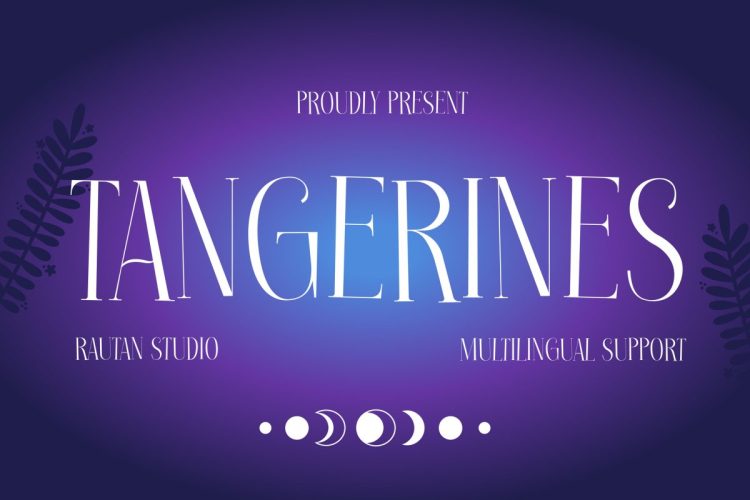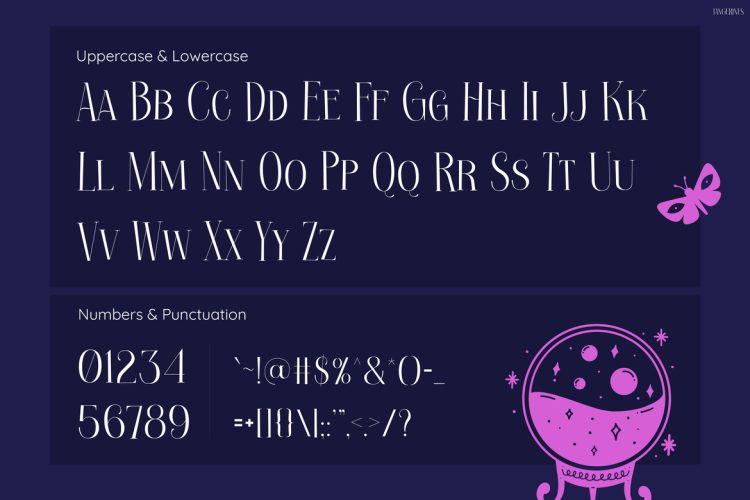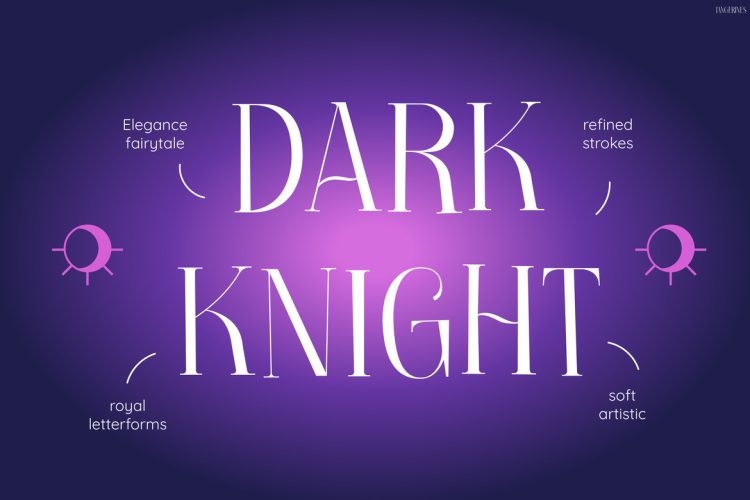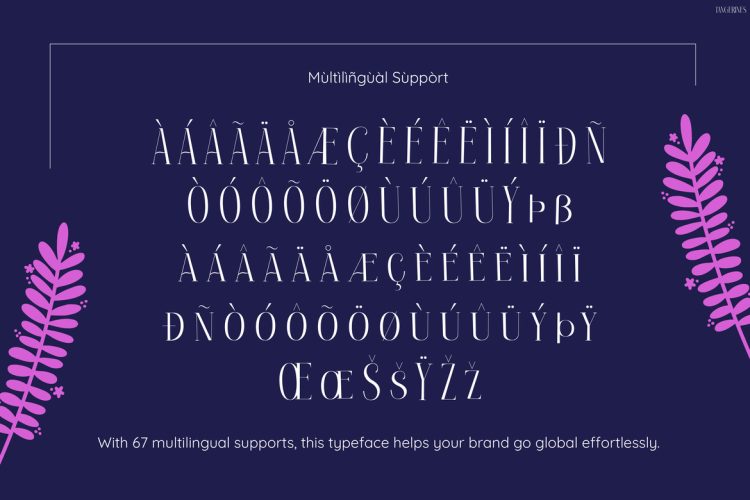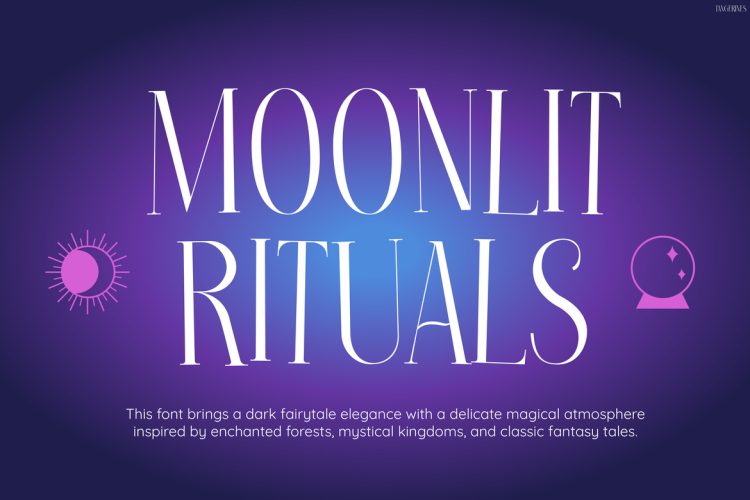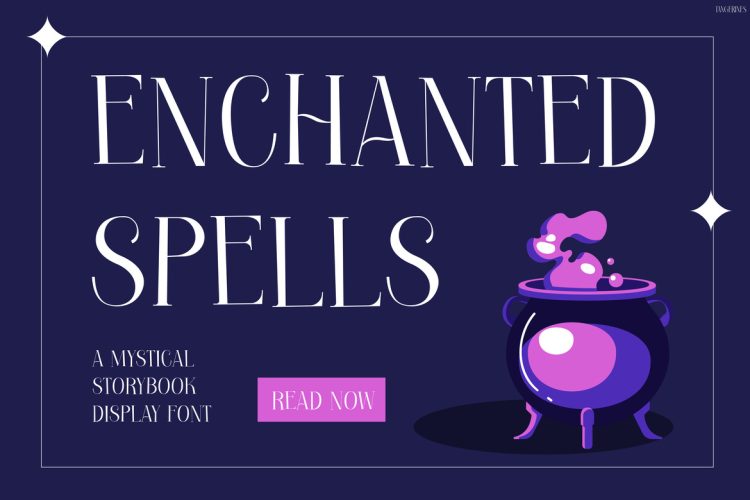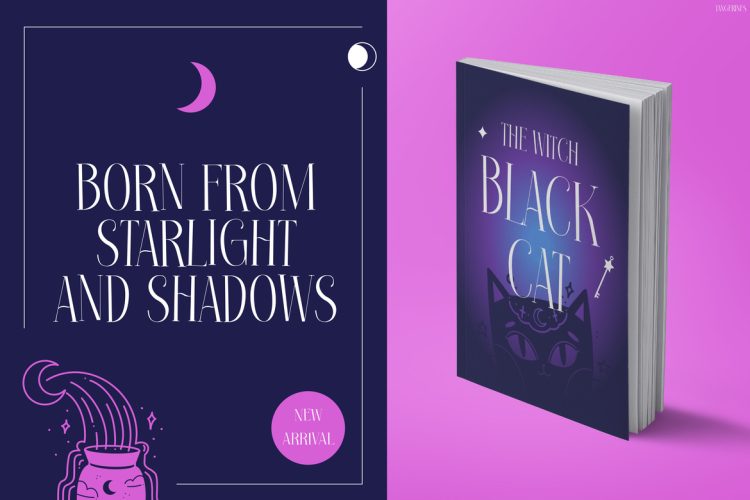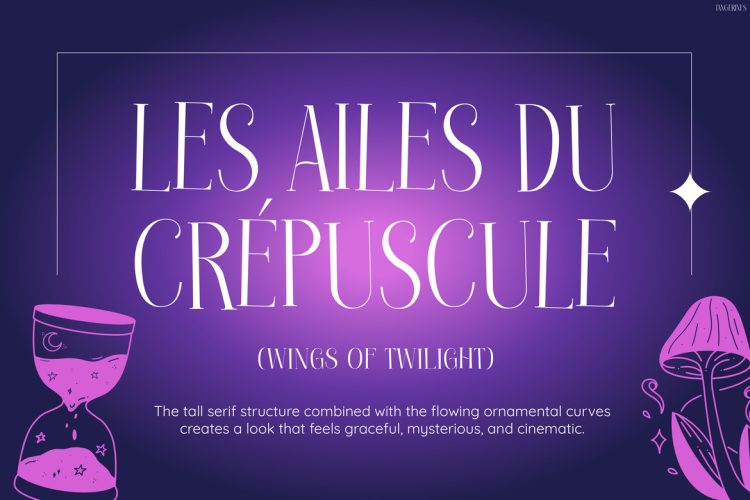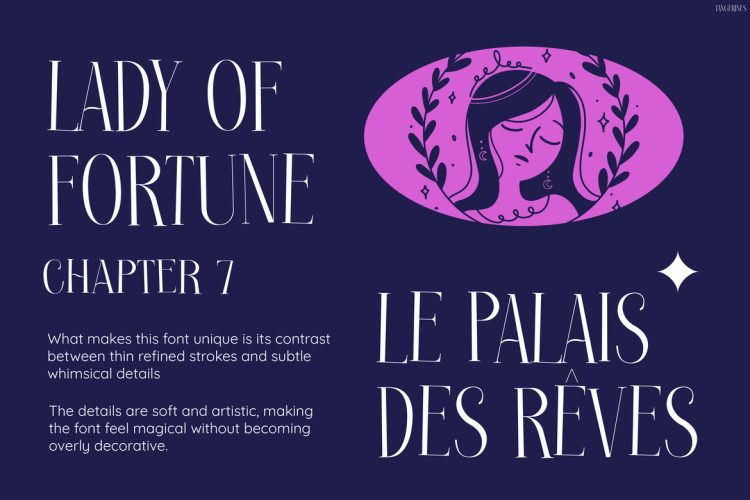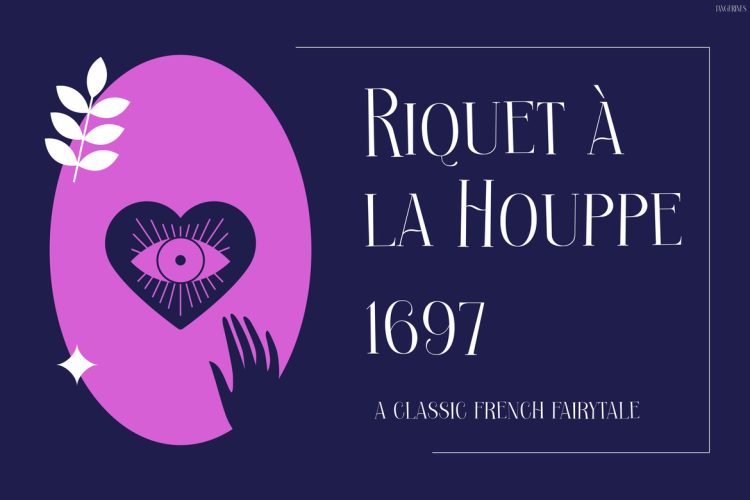
Kids Font Tangerines โ Enchanted Serif Font with Dark Fantasy Charm
Kids Font Tangerines is a dreamy and magical display font that beautifully combines elegant serif typography with whimsical fantasy aesthetics. With its tall letterforms, mystical curves, and decorative details, this font instantly creates a captivating dark-fairytale atmosphere. Moreover, the artistic styling makes every title look more expressive, stylish, and unforgettable. In addition, the elegant serif shapes give your typography a premium and sophisticated appearance. Because of its balanced readability, Kids Font Tangerines works perfectly for both digital and print projects. Furthermore, the magical visual style helps every design feel more immersive and imaginative. At the same time, the decorative details add a unique personality that instantly attracts attention. Even better, this font comes with Multilingual Support for 67 Languages, so you can create stunning international designs more easily and professionally.
Why Kids Font Tangerines Looks So Unique
Kids Font Tangerines blends fantasy-inspired aesthetics with modern elegant typography. As a result, every word feels mysterious, artistic, and visually powerful. Not only does the font create a magical atmosphere, but it also enhances the overall beauty of your layouts with its decorative and luxurious touch. Additionally, the clean readability keeps your text functional while still looking highly creative. Meanwhile, the stylish serif structure allows the font to work beautifully across many different themes and concepts. Whether you are creating fantasy book covers, mystical branding, or storytelling posters, this font helps every project feel more enchanting and memorable. Likewise, the dreamy visual style creates a warm yet mysterious mood that audiences instantly enjoy.
- Fantasy book covers
- Magical movie titles
- Witchcore and fairytale themes
- Kids branding and packaging
- Posters and social media graphics
- Storytelling projects
- Creative invitations
- Merchandise and apparel
- YouTube thumbnails
- Classroom decorations
Make Every Design Feel More Magical